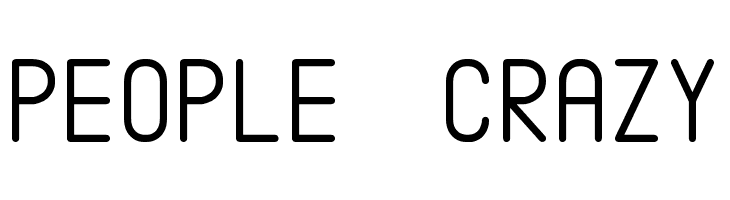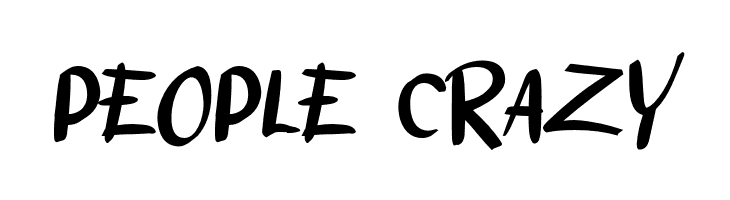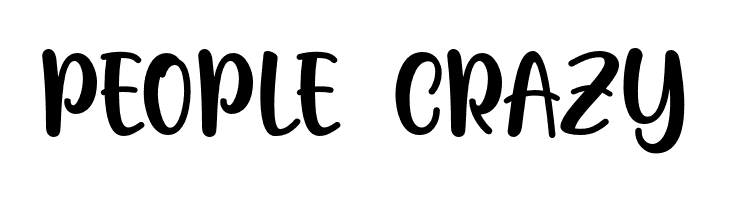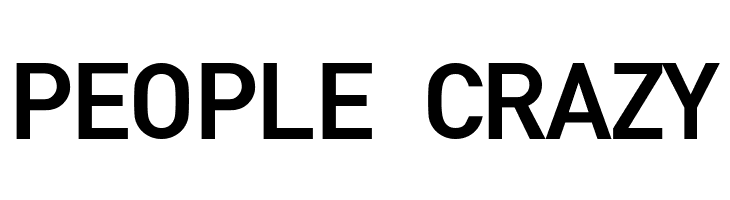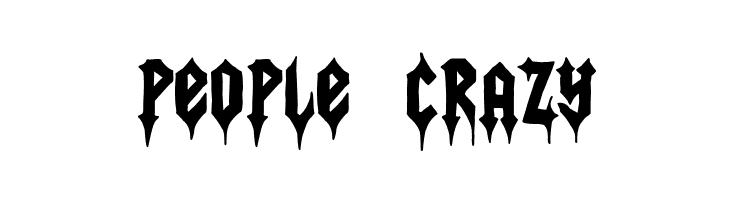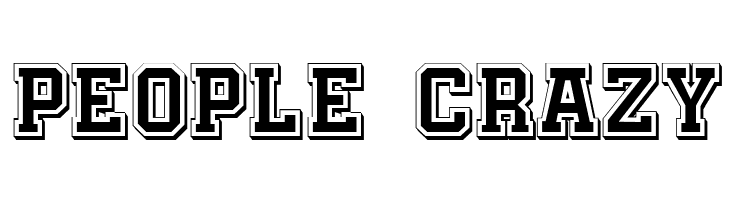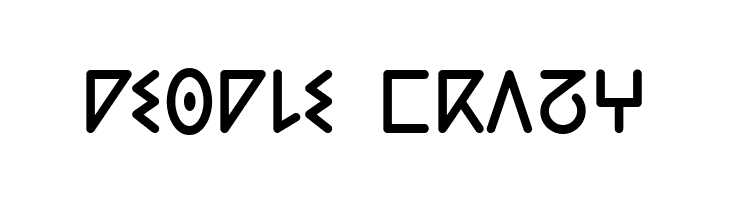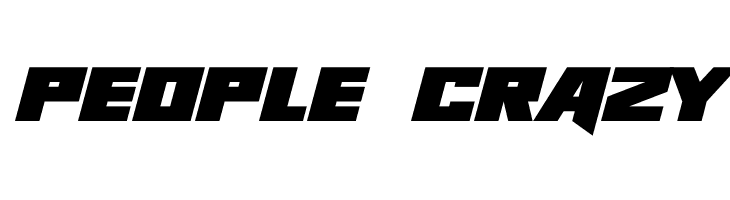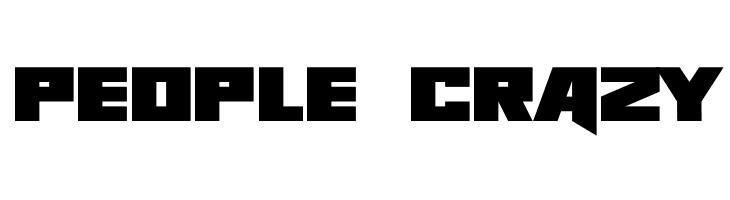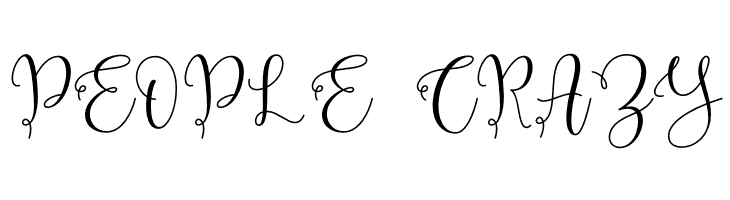
• ABSTRASCTIK Italic
A bold, geometric, and abstract font with a futuristic, italicized style.
• ABSTRASCTIK-Hollow
A futuristic, hollow geometric font with bold, angular lines.
• ABSTRASCTIK-Light
A bold, futuristic font with geometric shapes and thick strokes.
• Abstrec font tfb
A modern, rounded geometric font with uniform width and clean lines.
• Absurdsans FP
A bold, playful font with abstract and dynamic letterforms.
• Abu Dhabi
A cursive, handwritten font with elegant, flowing letters.
• abubble
Geometric, rounded sans-serif with a modern, technical look.
• Abuget
A dynamic, cursive script font with medium contrast and expressive strokes.
• Abuse
A bold, dramatic blackletter font with intricate detailing.
• Abwechselnschrift Bold
A bold, modern sans-serif font with clean lines and excellent readability.
• Abygail
A decorative script font with elegant loops and swirls, perfect for artistic projects.
• Abyssal Horrors
A bold, angular font with a modern, aggressive style.
• Abyssal Horrors Italic
A bold, italicized font with sharp angles and a futuristic design.
• AC Big Serif One
A bold and elegant serif typeface with a classic yet modern appearance.
• AC Big Serif Two
A classic serif font with high contrast and elegant serifs.
• AC Brodie
A modern, geometric font with clean lines and rounded edges.
• AC Filmstrip
A bold, decorative font styled like a filmstrip, perfect for cinematic themes.
• AC Framed
A bold, geometric font with a three-dimensional shadow effect.
• AC Framed Inverted
A bold, three-dimensional font with a shadow effect and geometric design.
• AC Framed Outline
A 3D outline font with a geometric, architectural style.
• AC Guanche Lite
A bold, geometric font with angular and curved elements for a modern look.